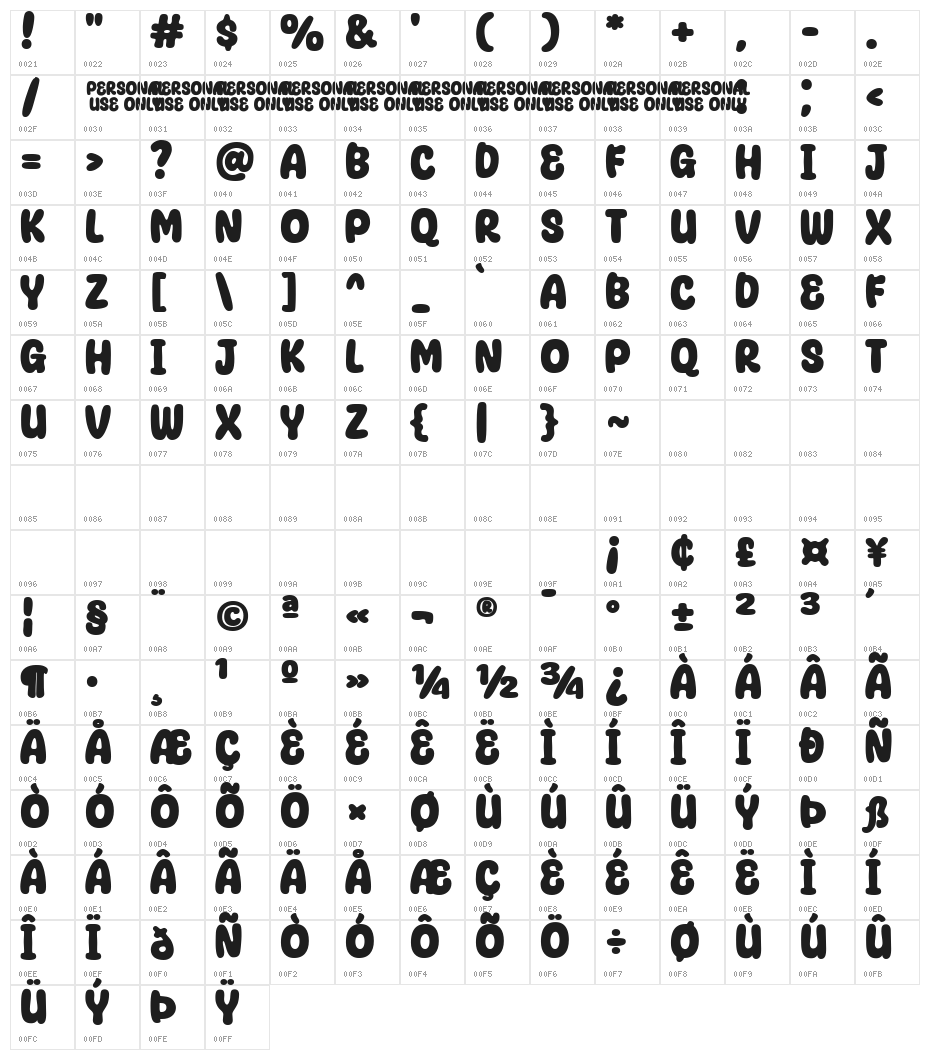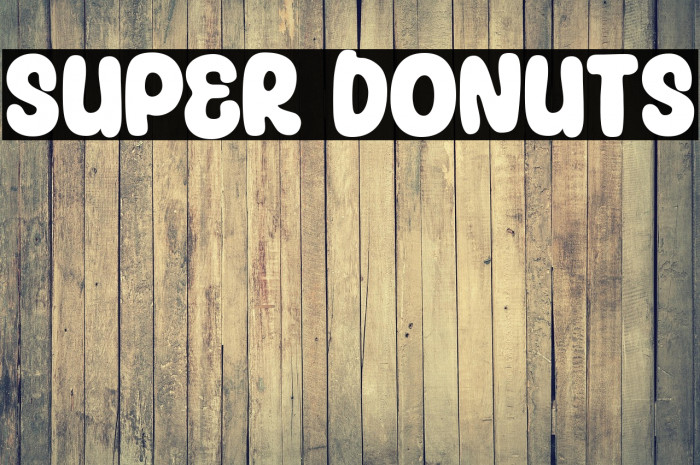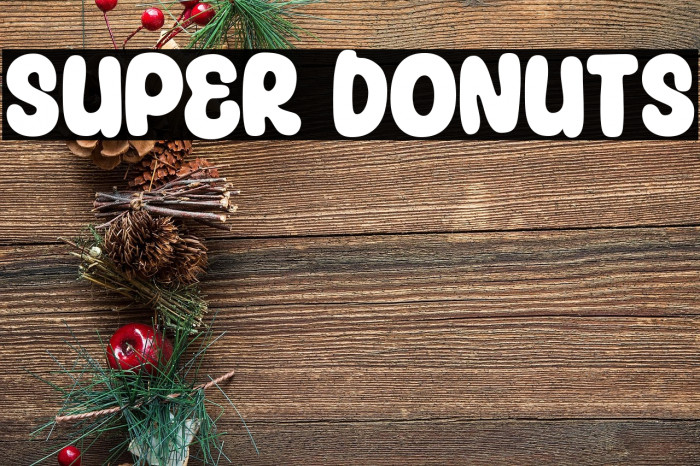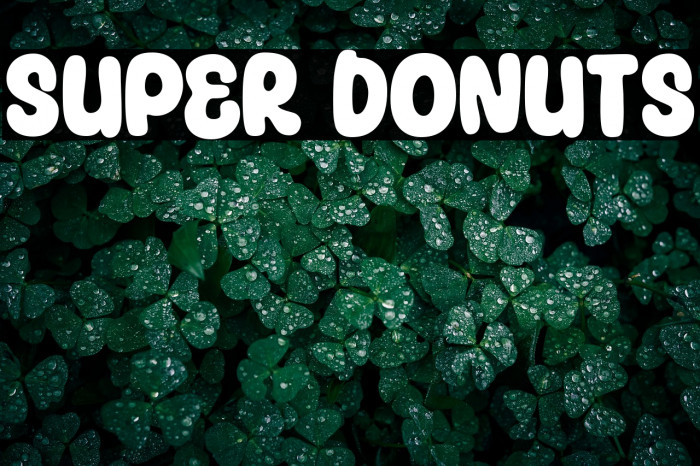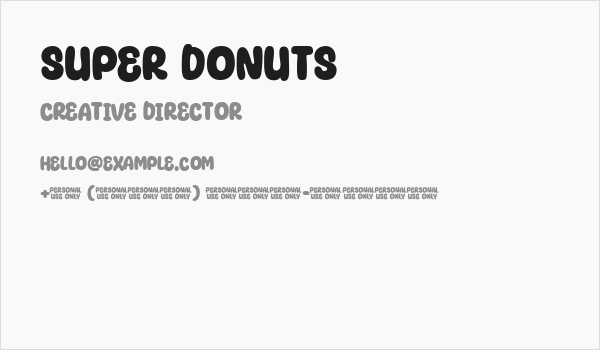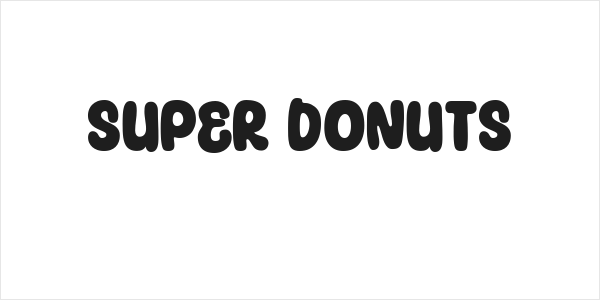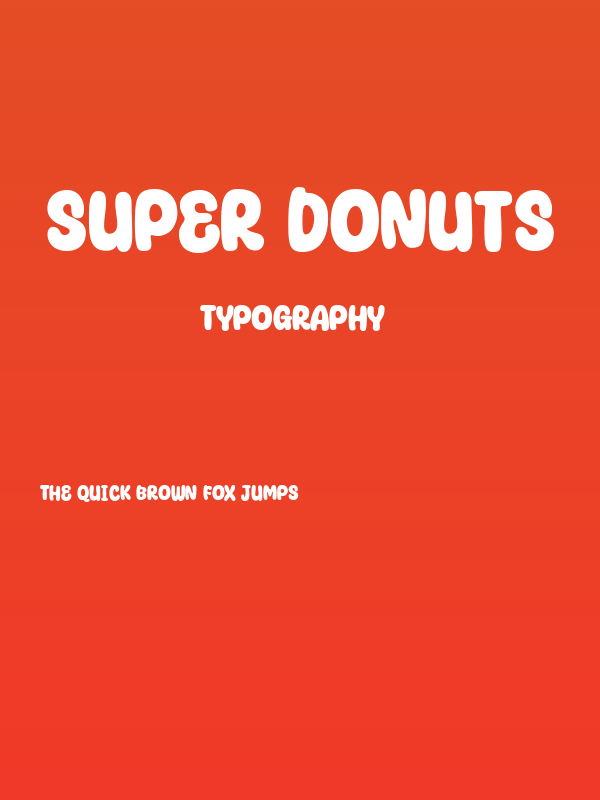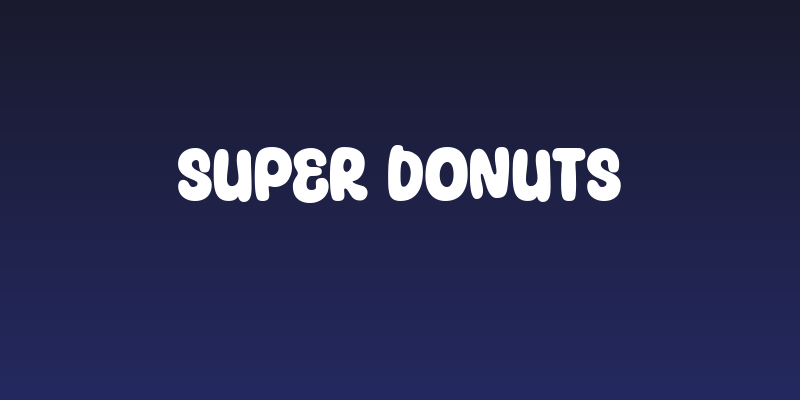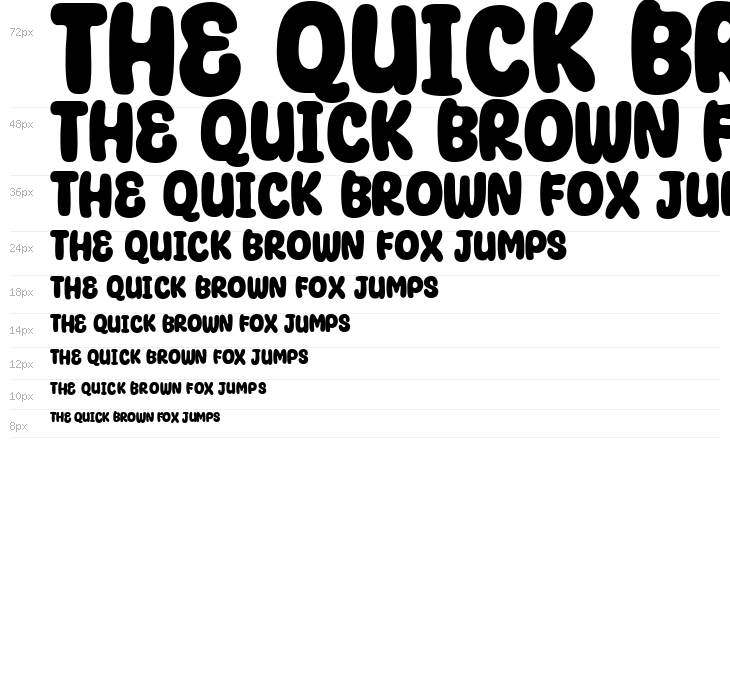
Super Donuts Font
Super Donuts Description
This playful and bold font features thick, rounded characters that convey a sense of fun and whimsy. The letters are uniformly wide, with a consistent stroke weight that gives the typeface a cohesive appearance. The rounded edges and lack of sharp angles contribute to its friendly and approachable style. The font includes both uppercase and lowercase letters, as well as numbers and a variety of special characters. Its design is reminiscent of retro and vintage aesthetics, making it suitable for projects that aim to evoke nostalgia or a playful tone.
| Overall Style | Playful, Retro |
| Proposed Projects | Ideal for children's books, playful branding, retro-themed posters, and fun social media graphics. |